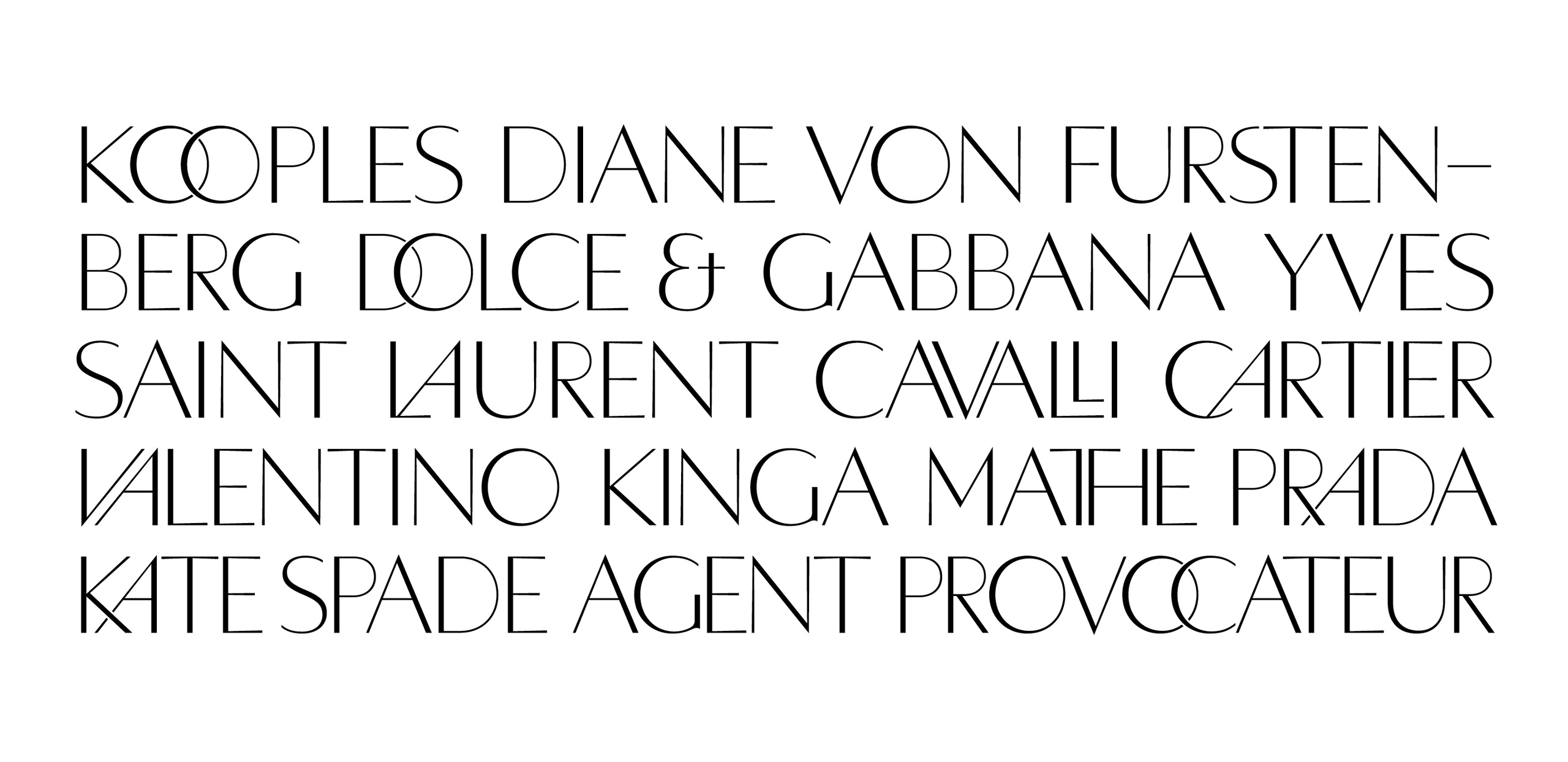
F37 Bergman Font
F37 Bergman Font is perfect for editorial design, magazine layouts, book typography, corporate branding, architectural presentations, minimalist logos, exhibition catalogs, annual reports, newspaper headlines, and contemporary web design.
F37 Bergman Font is exciting because it masterfully combines Scandinavian design principles with modern typographic innovation, creating a typeface that embodies clean minimalism while maintaining exceptional readability and sophisticated character. Its geometric precision and refined details make it a standout choice for projects requiring both functionality and aesthetic excellence.
The F37 Bergman Font family includes Thin, Light, Regular, Medium, Bold, Extra Bold weights, corresponding Italic versions, Condensed variations, Extended styles, and Display cuts, providing comprehensive typographic coverage for complex design systems and brand identity projects.
F37 Bergman Font Free Download represents the pinnacle of contemporary type design, drawing inspiration from Nordic design philosophy to create a versatile typeface that excels in both digital and print environments. This exceptional font features carefully balanced proportions, optimized letter spacing, and subtle geometric details that enhance legibility without sacrificing visual impact. The typeface's clean architecture makes it particularly effective for professional applications where clarity and sophistication are paramount.
Whether you're developing corporate identity systems, designing editorial publications, creating architectural documentation, or building modern websites, F37 Bergman Font delivers outstanding performance across all applications. Its neutral yet distinctive character works exceptionally well for technology companies, design studios, consulting firms, and cultural institutions that value precision and contemporary aesthetics.
Perfect for graphic designers, art directors, publishers, and brand strategists, this font provides the professional foundation needed for successful communication design. The typeface's versatility shines in both large-scale environmental graphics and detailed text settings, maintaining consistency and quality at every size.
F37 Bergman Font supports extensive language coverage, advanced OpenType features, and professional-grade spacing that ensures optimal performance in demanding typographic situations. Its systematic approach to weight distribution and style coordination makes it ideal for complex publications and multi-platform brand applications. Elevate your design projects with F37 Bergman Font Free Download and experience the perfect balance of form and function.